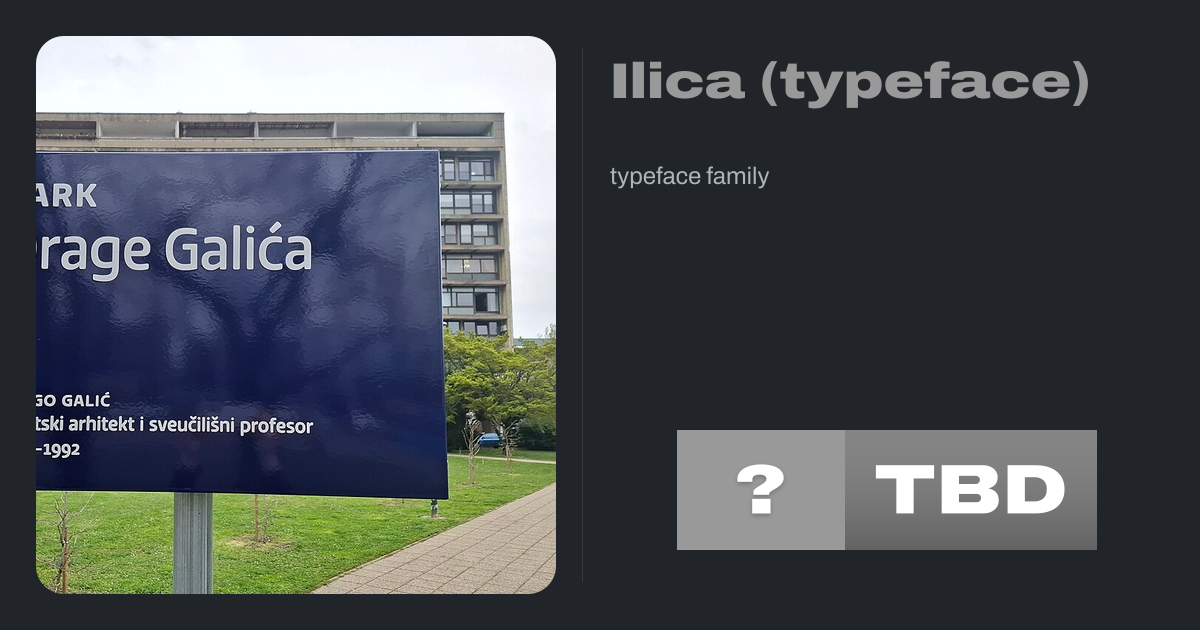
Ilica (typeface)
typeface family
Ilica (pronounced [Ėilitsa] EEL-itsa) is a typeface created for Zagreb's street signalization by typographers Nikola Äurek and Damir BraliÄ in 2012. It was named after the synonymous street in Donji grad, where new street signalization featuring the font was supposed to be put up first. The font features 16 variations and was designed as a...